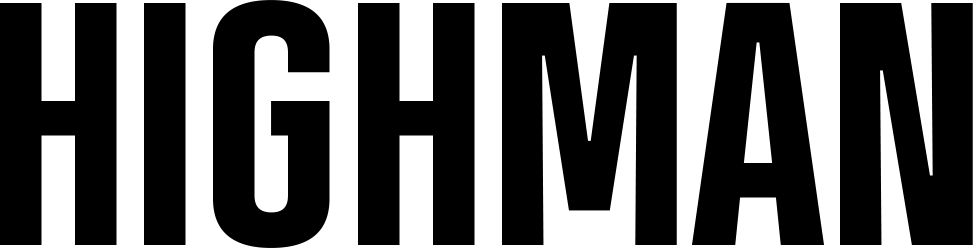
Highman Font
Are you looking for a sans-serif font to level up your text layout? If so, Highman can do the trick. This case appears in tall and bold characters and fits awesome for headlines, printed quotes, applications, and so fort…
Are you looking for a sans-serif font to level up your text layout? If so, Highman can do the trick. This case appears in tall and bold characters and fits awesome for headlines, printed quotes, applications, and so forth. It gives you a tidy and simple feel but remember, it doesn’t include lowercase letters. Want more? Come and visit our limitless inventory.